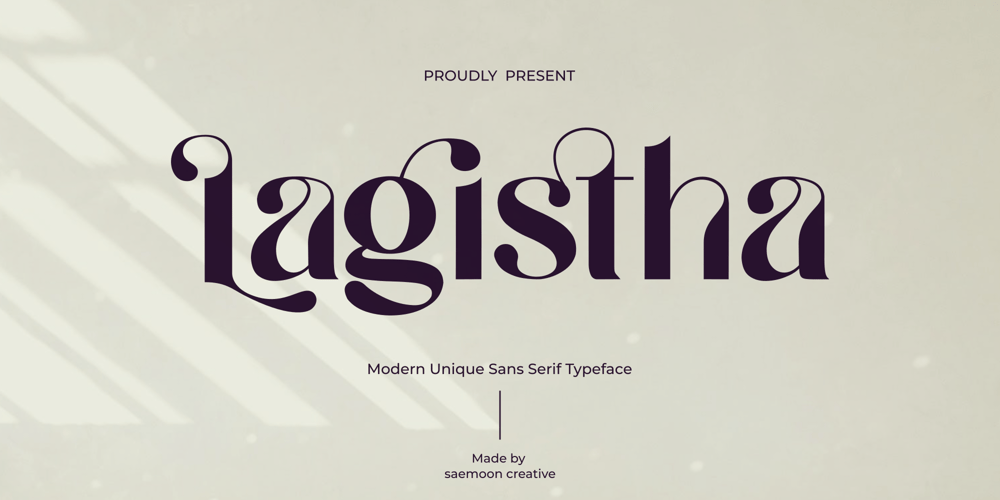
Lagistha Font Family was designed by Sapto Susilo and published by Saemoon Creative. Lagistha contains 1 styles and family package options. Lagistha is a unique and modern sans-serif font perfected with ligatures and alternatives.Lagistha is a highly versatile font with a unique, modern, and elegant design full of harmonious curves to make your designs perfect with a unique and elegant impression.Lagistha is created with many ligatures and alternates to make it easy for you to create elegant and charming works. This font can be used for various design projects, including logos, brand identity, product branding, web design, advertising flyers, and more.